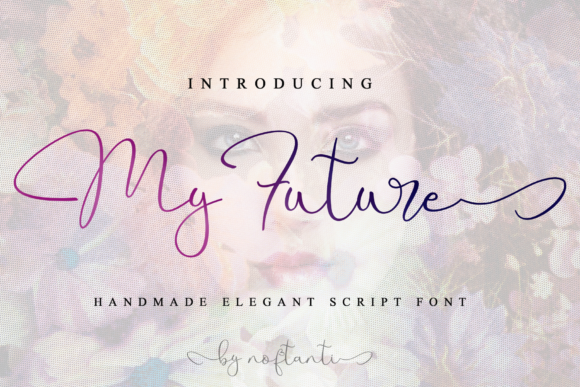
Journey into a world of boundless creativity with My Future Font, the ultimate script font designed to ignite your imagination and transform your designs into captivating masterpieces. This modern handwritten font, crafted by the skilled hands of noftanti, is not just a collection of letters; it's an expression of art, a brushstroke of elegance, and a dance of ink on paper.
With My Future Font, you can unleash your inner artist and create designs that resonate with a unique charm. Its flowing curves and graceful strokes add a touch of sophistication to branding, headings, wedding designs, invitations, signatures, logos, labels, and any project yearning for a touch of individuality.
Step into a realm where your imagination takes center stage. Let My Future Font guide you through a symphony of emotions, transforming ordinary words into heartfelt messages and captivating visuals. Its versatility knows no bounds, adapting seamlessly to a myriad of design styles. Whether you seek a whimsical touch, a vintage allure, or a dash of contemporary flair, My Future Font will oblige, exceeding your expectations with every stroke.
Embrace the beauty of customization with My Future Font. Tailor it to your creative vision, adjusting its size, color, and effects to match your artistic aspirations. Create harmonious compositions that reflect your unique personality and style, leaving an indelible mark on the hearts and minds of your audience.
Don't settle for ordinary fonts; embrace the extraordinary with My Future Font. Its captivating allure will make your designs shine brighter than the stars, leaving a lasting impression that lingers in the memories of those who encounter your creations. Unleash your creativity and embark on a journey of design excellence with My Future Font today.